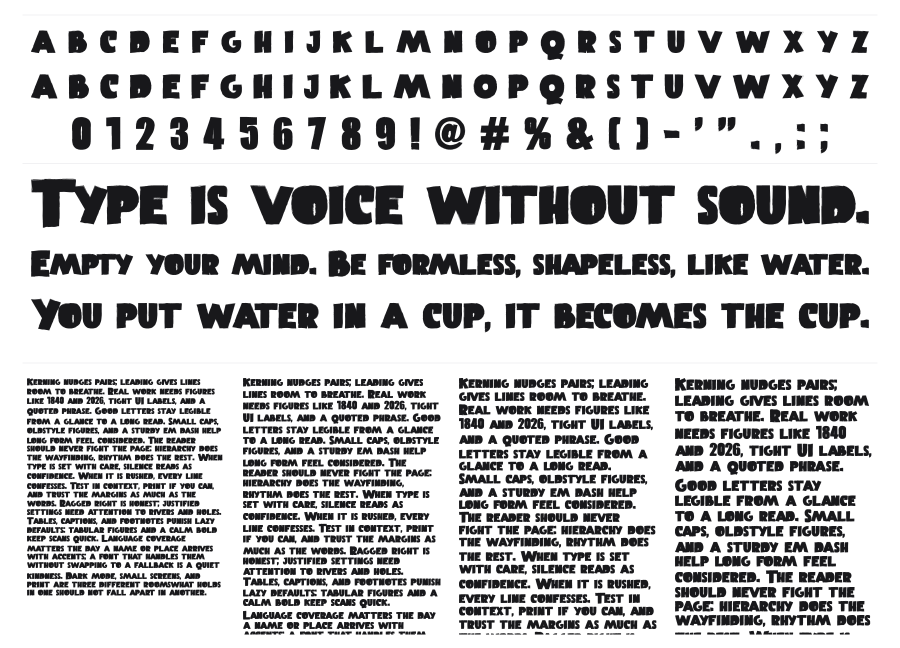
Unicorns Monster
Unicorns Monster is a heavy brush display face with chunky, rounded characters and rough, hand-inked edges. Each letter has an irregular, spontaneous quality that feels like it was dashed off with a wide brush at full speed. It works loudly on kids' apparel, party invitations, and social media graphics.